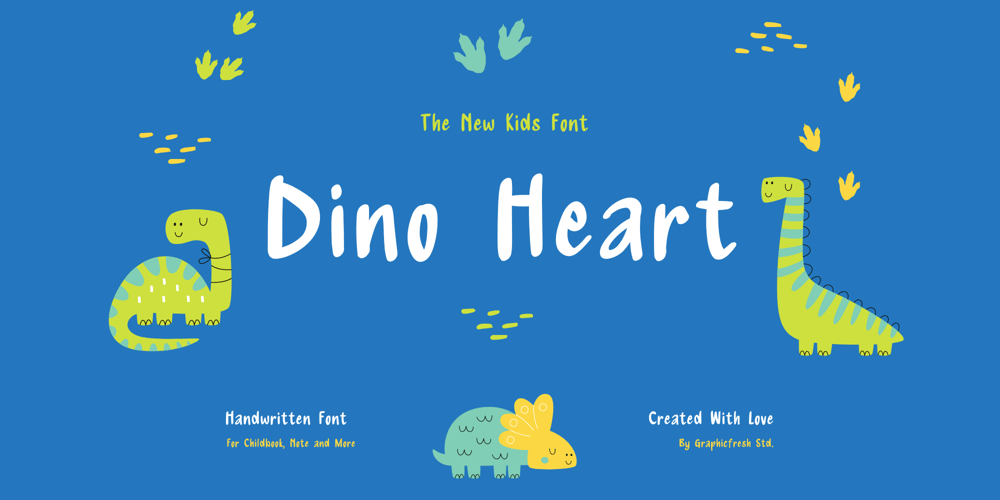
Dino Heart Font Family was designed by Muhammad Husni Haikal and published by Graphicfresh. Dino Heart contains 1 styles and family package options. Introducing “Dino Heart” – a font that perfectly captures the essence of fun and friendliness! With its rounded, soft edges and playful structure, “Dino Heart” is designed to add a touch of warmth and joy to your projects.